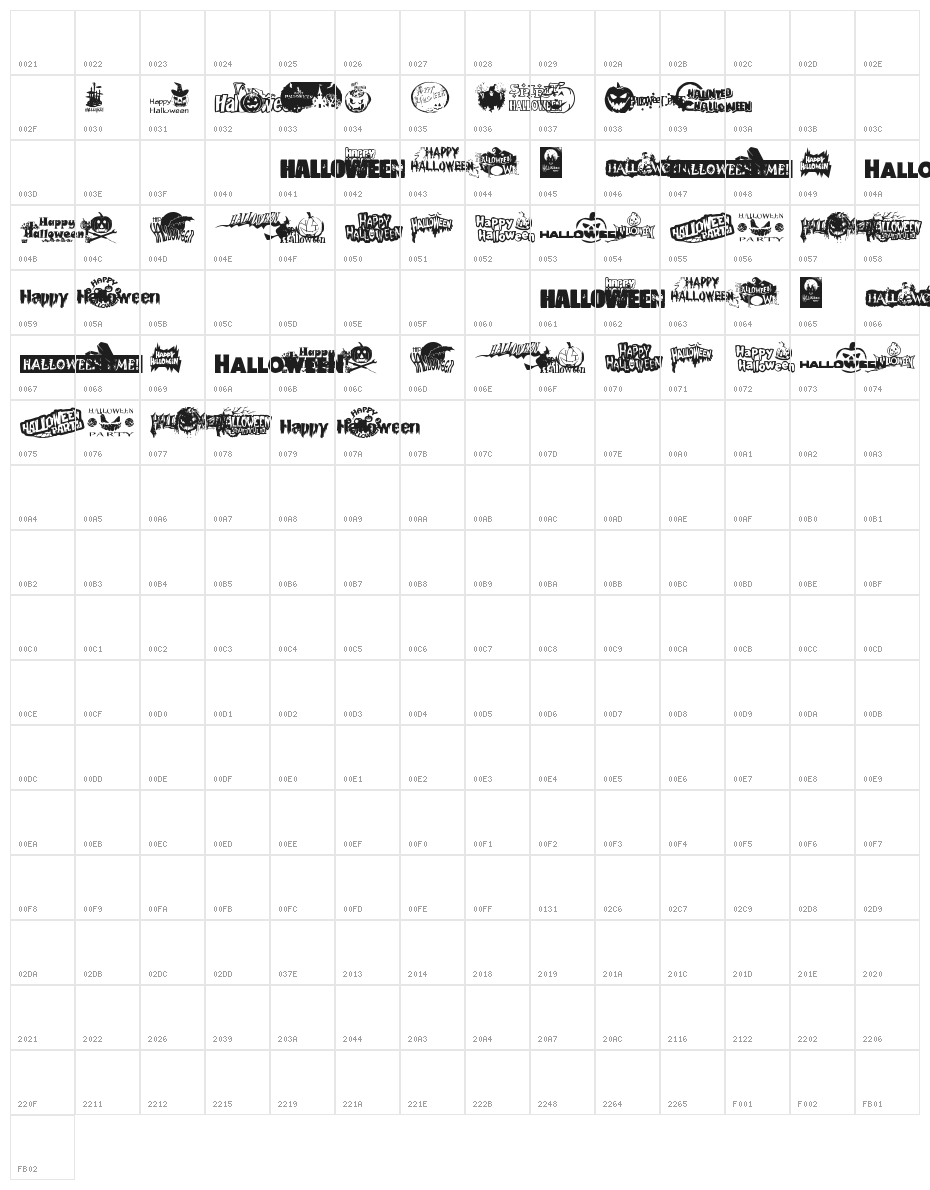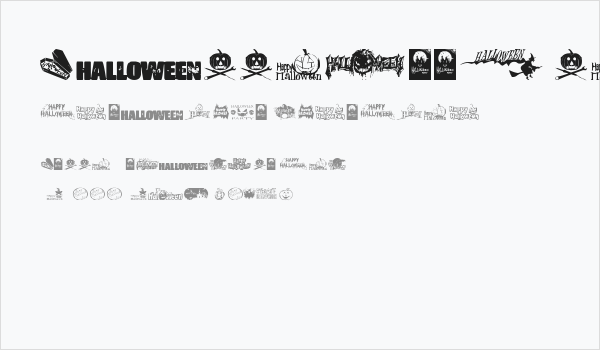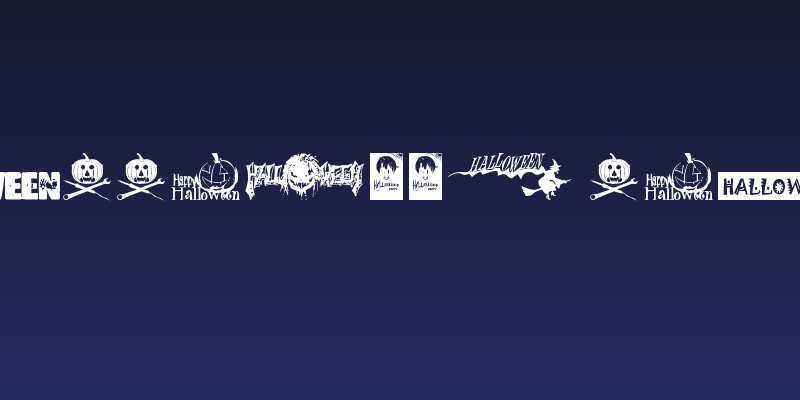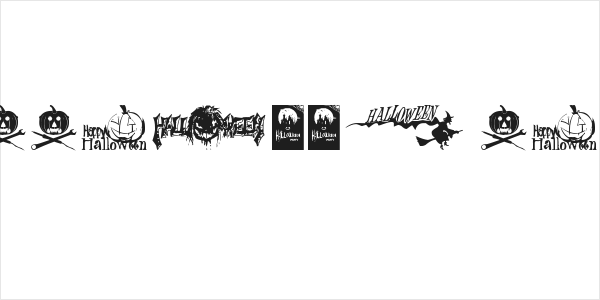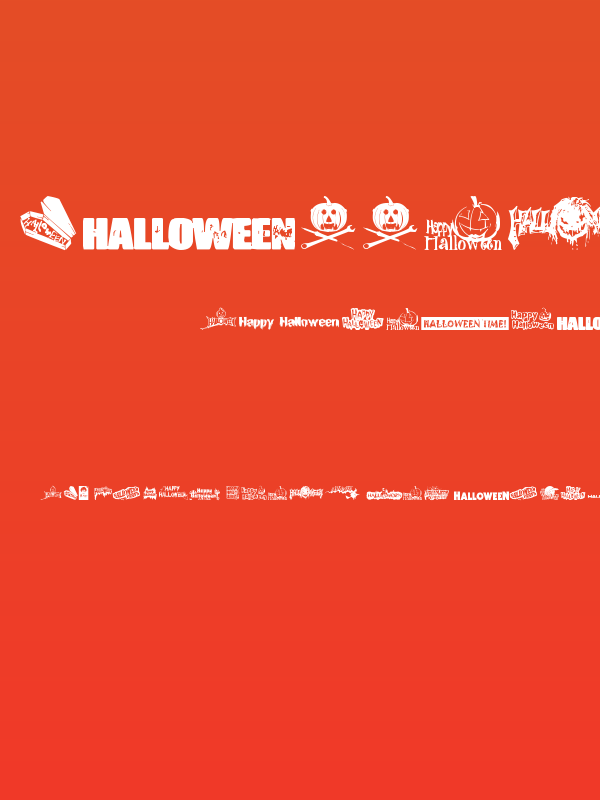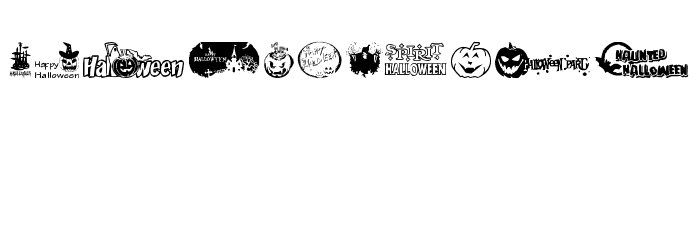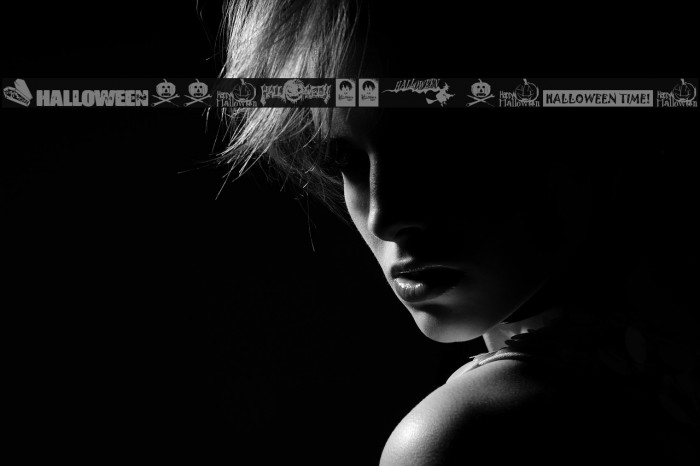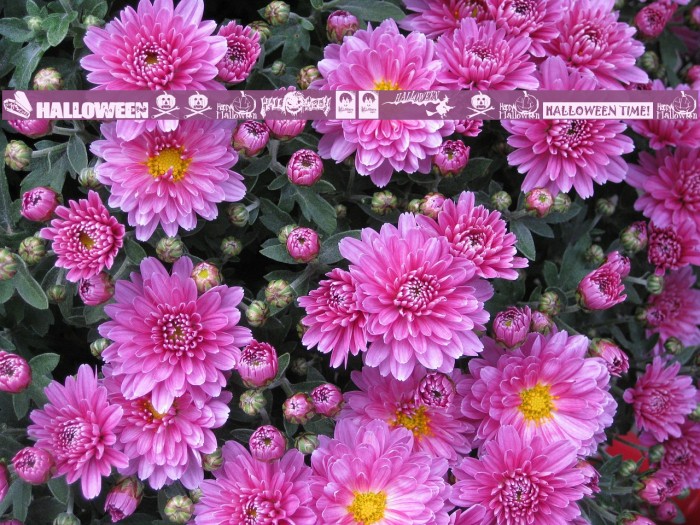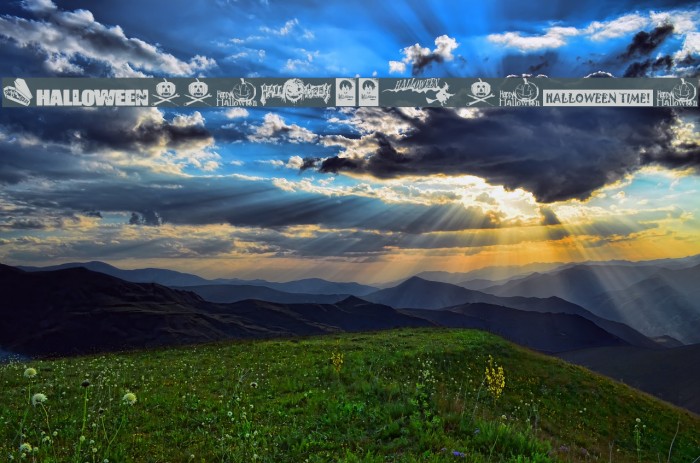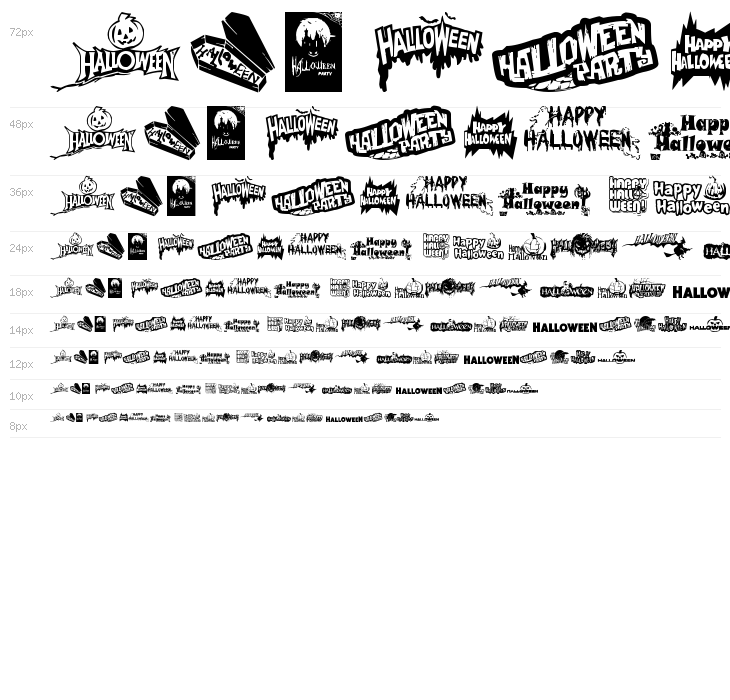
Halloween Logo Font
Halloween Logo Description
This collection of Halloween-themed logos features a variety of playful and spooky designs, each incorporating elements typical of the holiday such as pumpkins, bats, and haunted houses. The fonts used are highly decorative, with some incorporating jagged edges or dripping effects to enhance the eerie atmosphere. The designs vary in complexity, from simple text with minor embellishments to intricate compositions with multiple graphic elements. The use of bold, contrasting colors and creative typography makes these logos eye-catching and suitable for festive occasions.
| Proposed Projects | These logos are perfect for Halloween party invitations, event posters, themed merchandise, or seasonal marketing campaigns. |